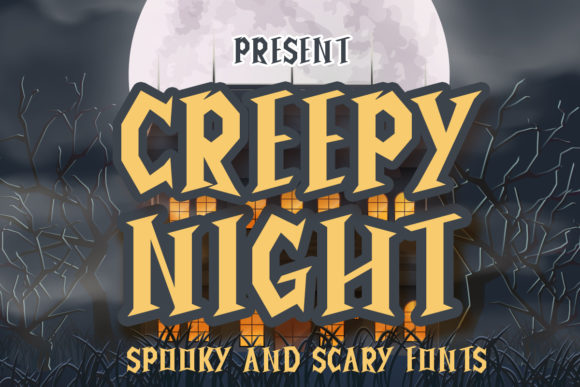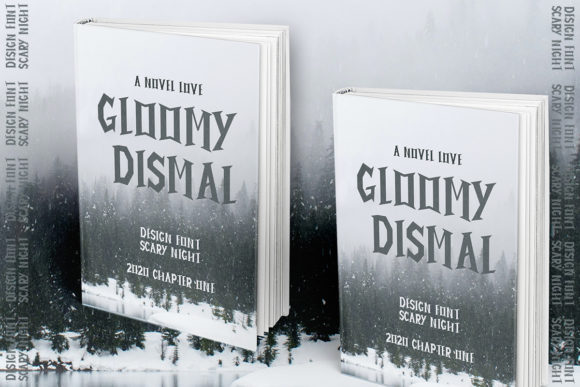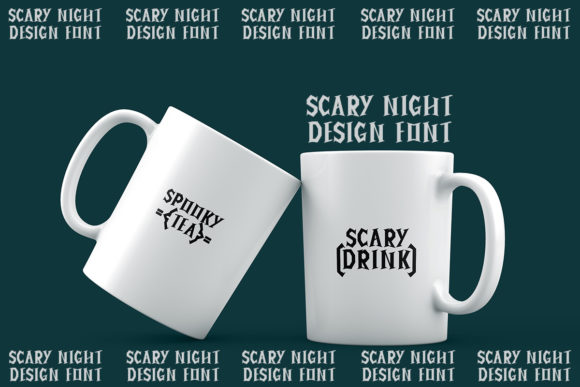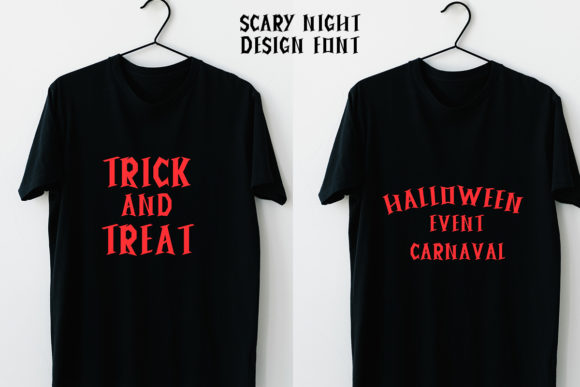
Creepy Night Font
About the Creepy Night Font
Let us introduce you to Creepy Night Font, where timeless design meets modern craftsmanship. Creepy Night is a spooky and scary display font. Ideal for any October design or Halloween party, this font will become your favorite in no time!
Creepy Night excels as a display font for headlines, posters, and short impactful text within Halloween-themed projects or branding related to horror, gothic aesthetics, or dark fantasy. Its strong, dramatic forms are not suitable for body text or UI elements; the readability suffers at smaller sizes and in continuous paragraphs.
The font’s core personality is bold and theatrical. It projects a sense of mystery and intrigue, making it perfect for event invitations, movie titles, or packaging for spooky products. Avoid using it for anything requiring high legibility.
Consider pairing Creepy Night with a clean sans-serif like Open Sans for contrast, or a more traditional serif such as Merriweather for a classic horror feel. A playful script font, used sparingly, could also add visual interest while maintaining readability.
Creepy Night Font Usage Examples
Creepy Night Font Example